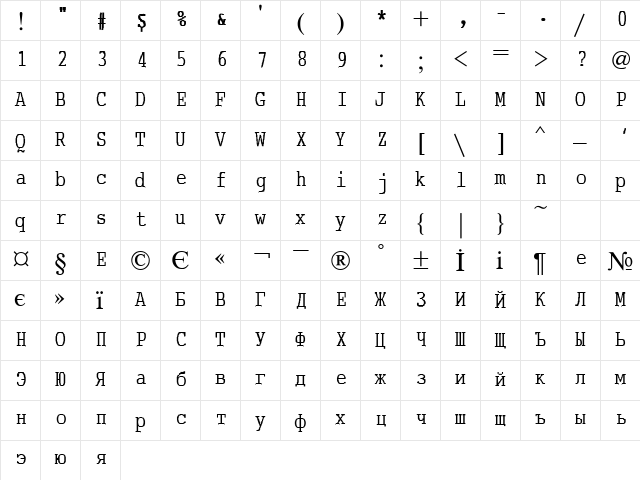
ABC_TypeWriterRussian Regular
Design Context for ABC_TypeWriterRussian Typeface
ABC_TypeWriterRussian brings the precise, column-aligned rhythm of monospaced typography to designs that value technical clarity and systematic order.
Pro Tip: Pair ABC_TypeWriterRussian with a proportional sans for UI contexts where code-style labels and regular body copy need to coexist.